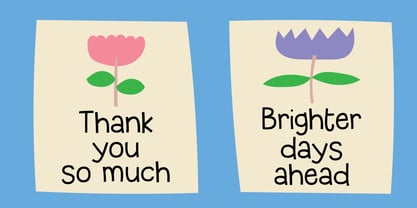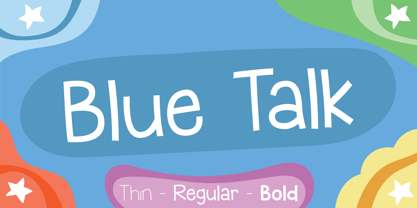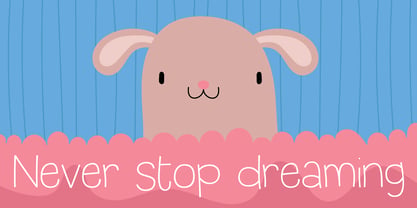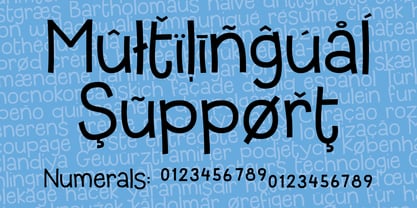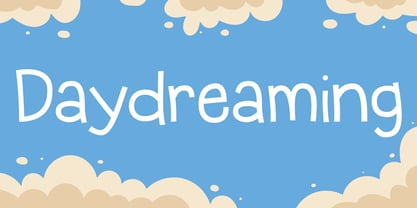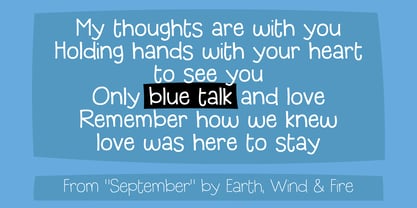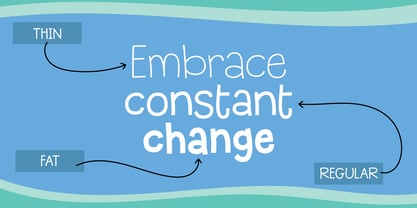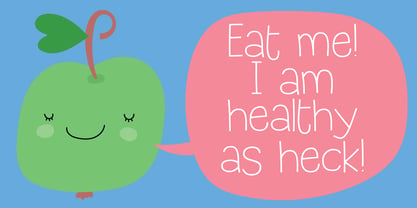
Blue Talk
by PizzaDude.dk
Say hello to “Blue Talk” - my cute handdrawn sans font!
Originally handdrawn and then carefully digitalised, making it smooth as heck!
How about adding a loose, vivid touch to your projects?! Blue Talk works super duper good with books, posters, magazines, drawings and other creative projects.
Blue Talk comes in 3 different versions: Thin, Regular and Bold. They play very well together.
Features:
Subscript and Superscript
Normally typedesigners resizes the numbers to make Subscript and Superscript. I do that on occasions as well, but in this case I have drawn the numbers, instead of resizing them. That way they appear more natural, organic and unique.
Fractions are nice having available. You skip the work of resizing the numbers yourself, because I have done all the work for you!
Multilingual support
This font comes with extensive multilingual support, and supports loads of different languages.